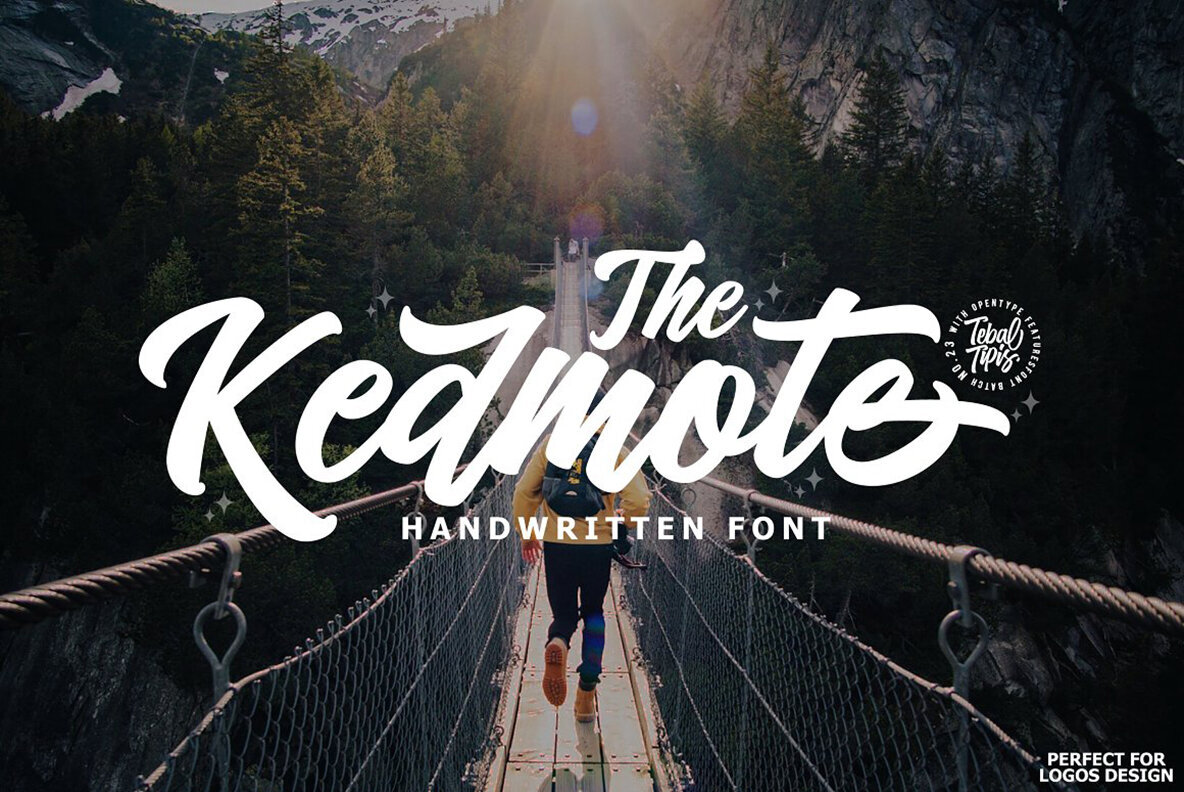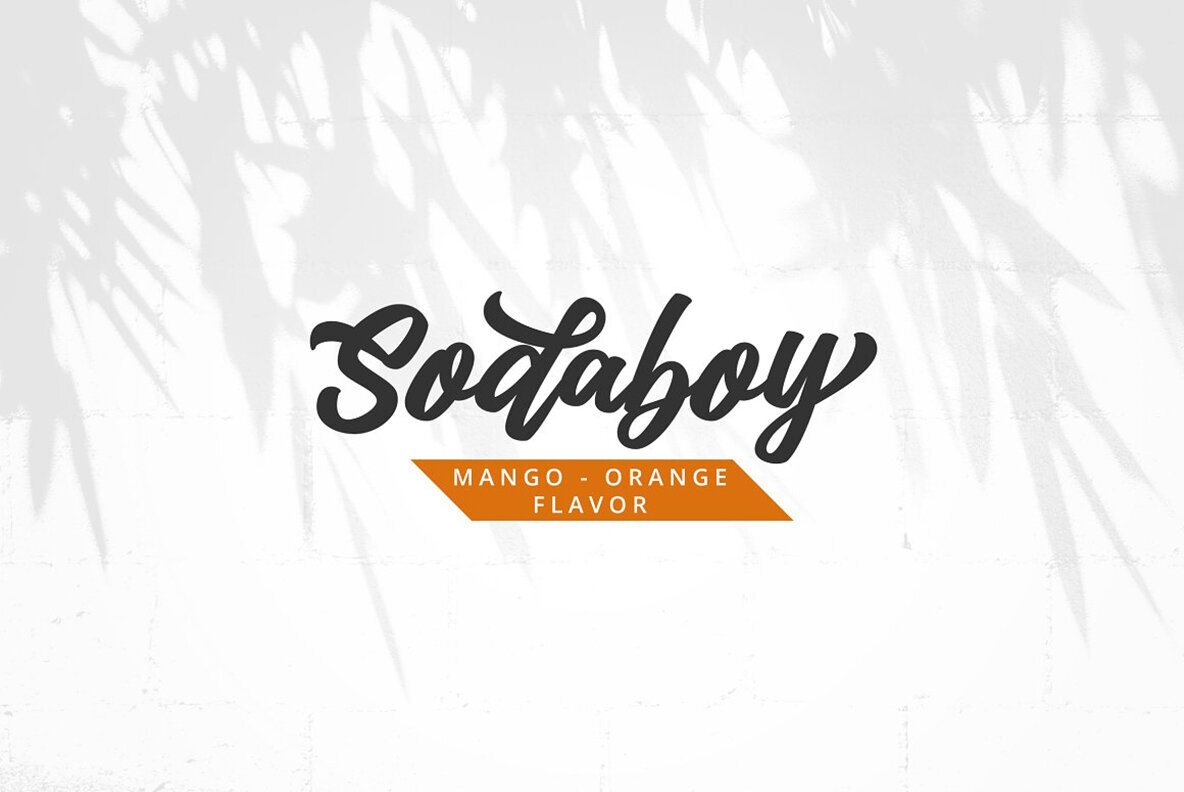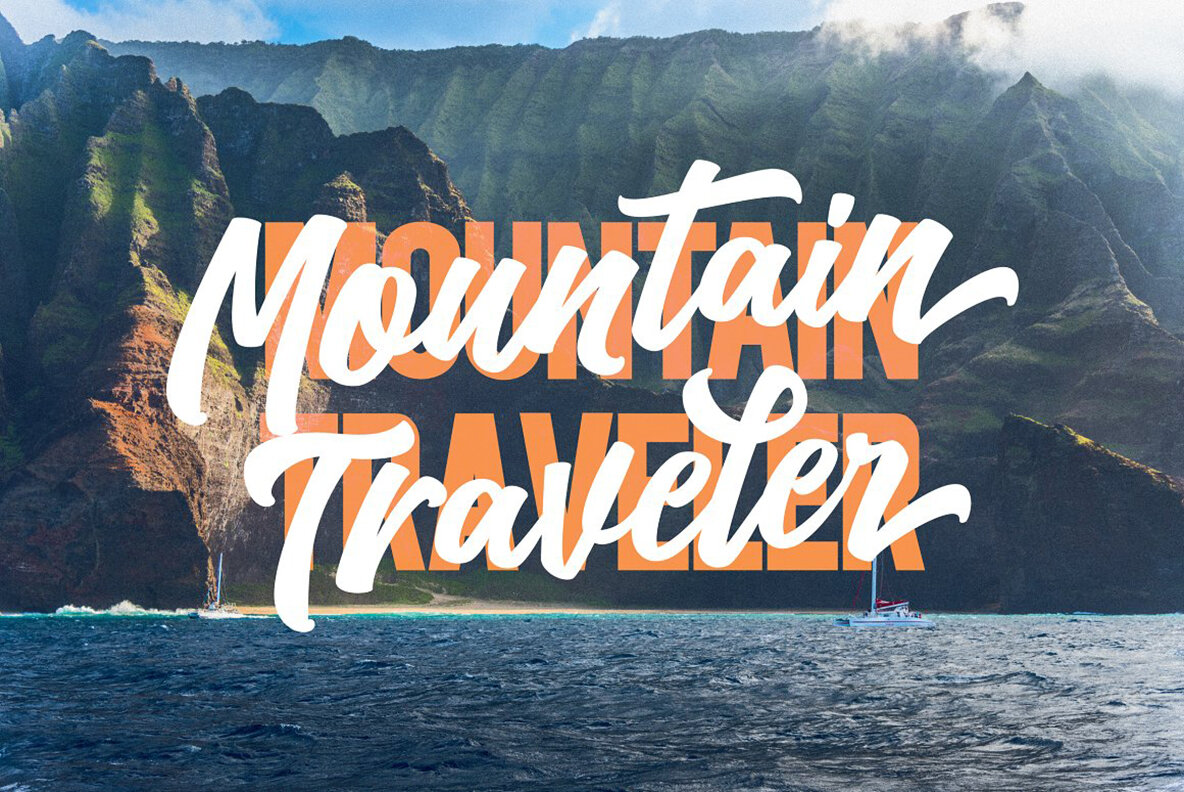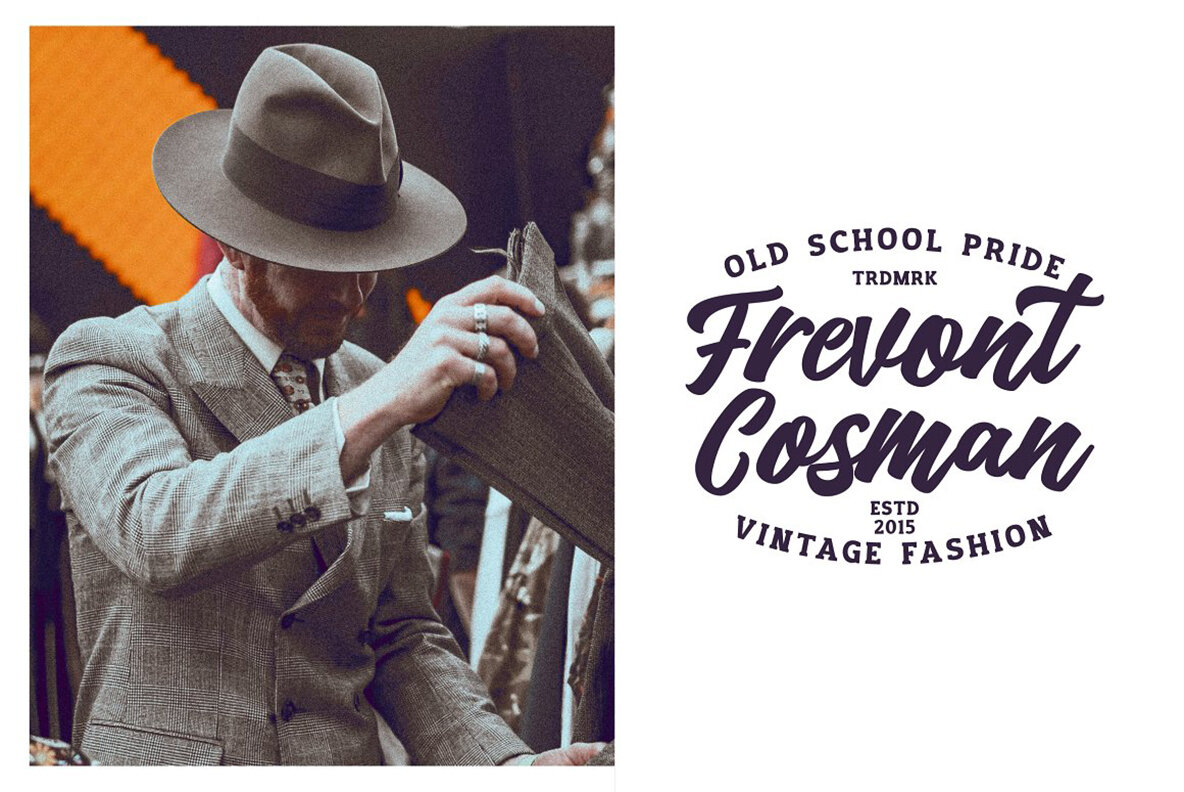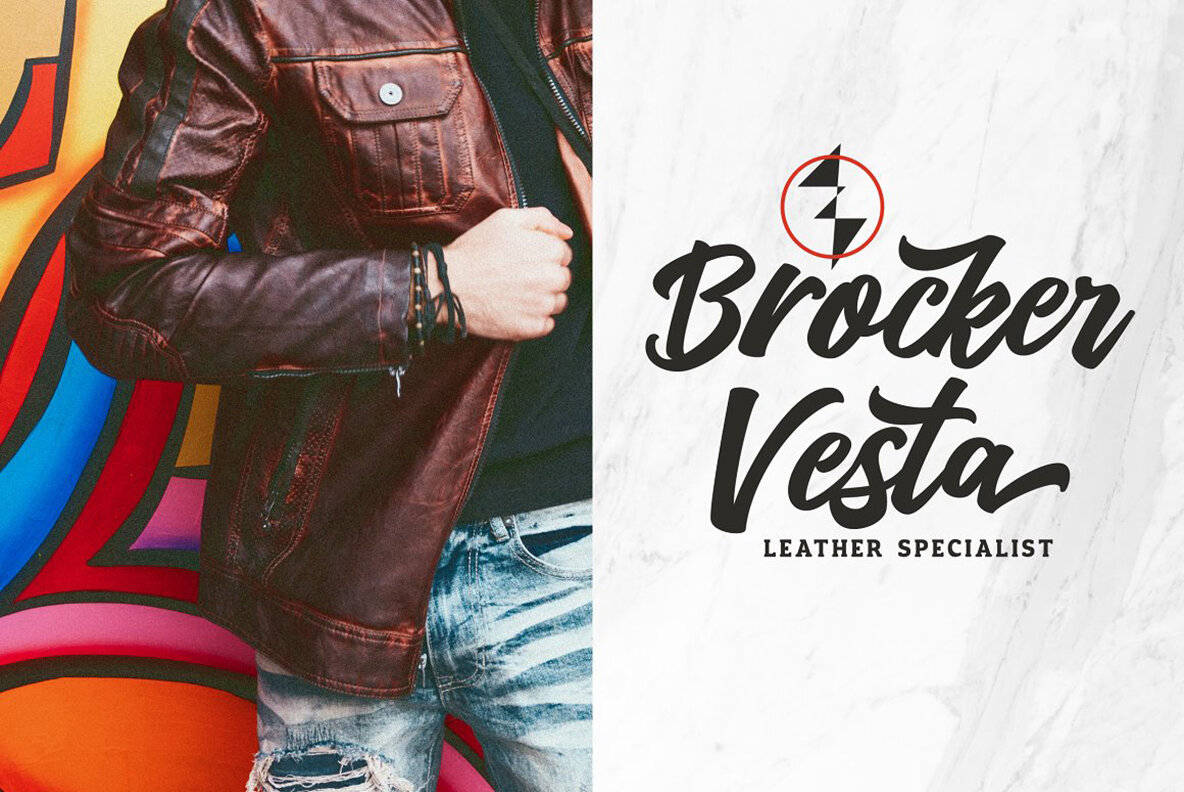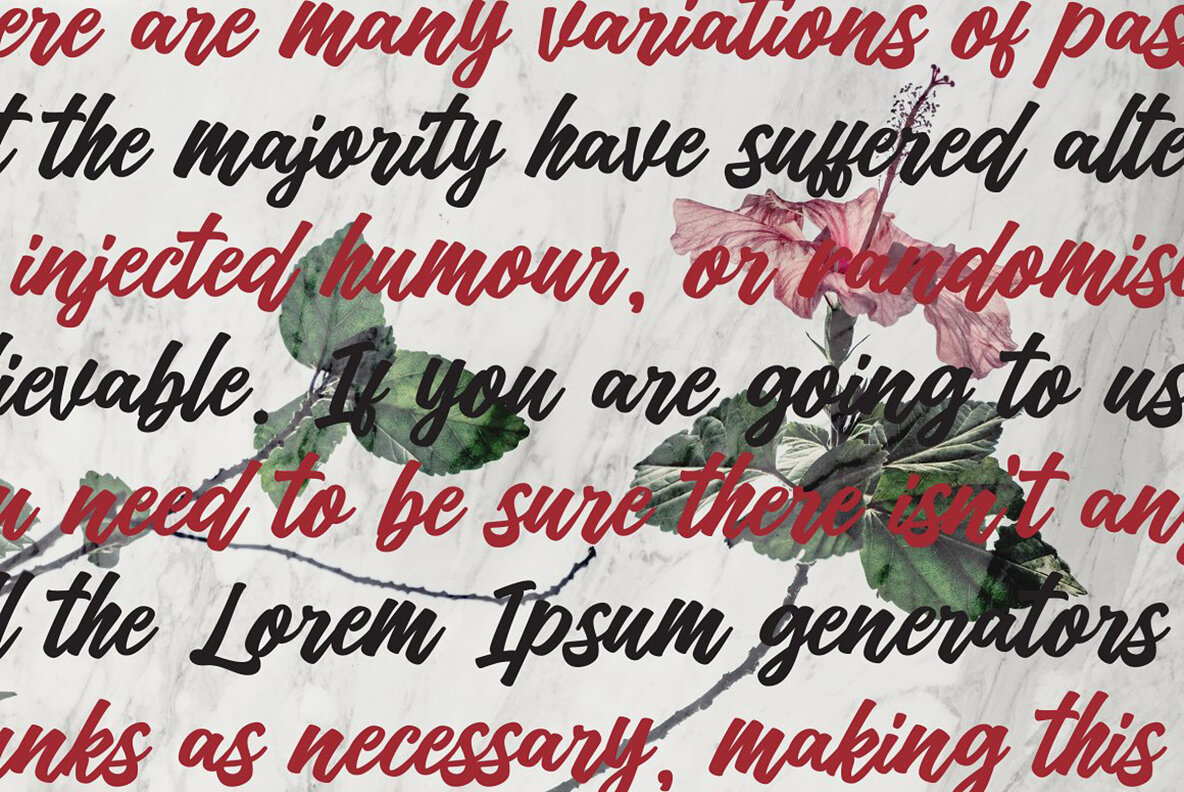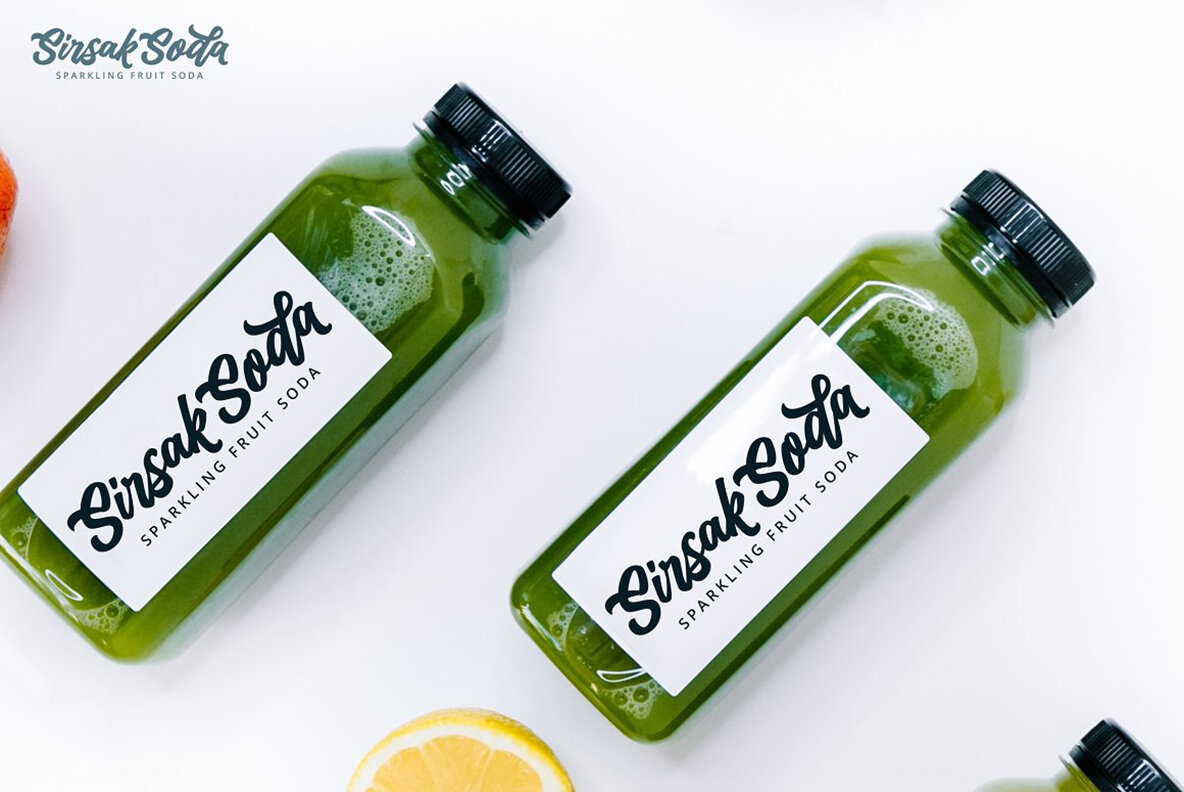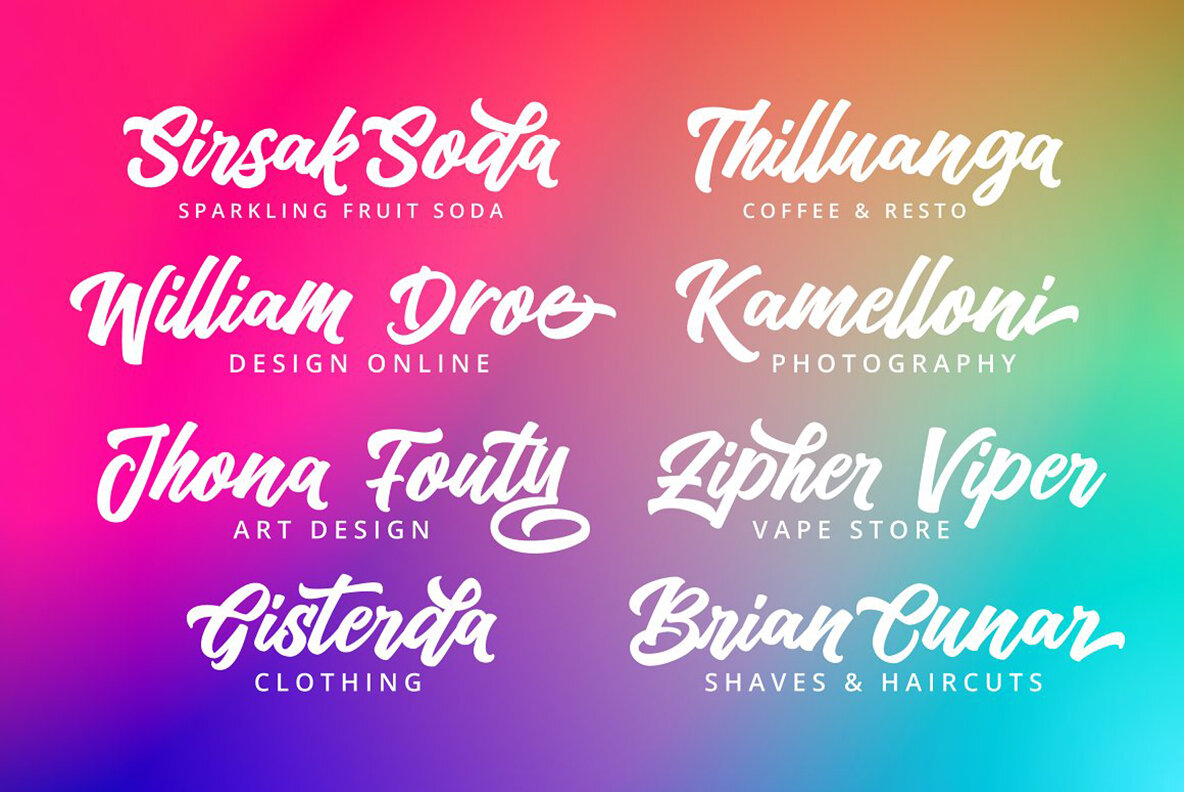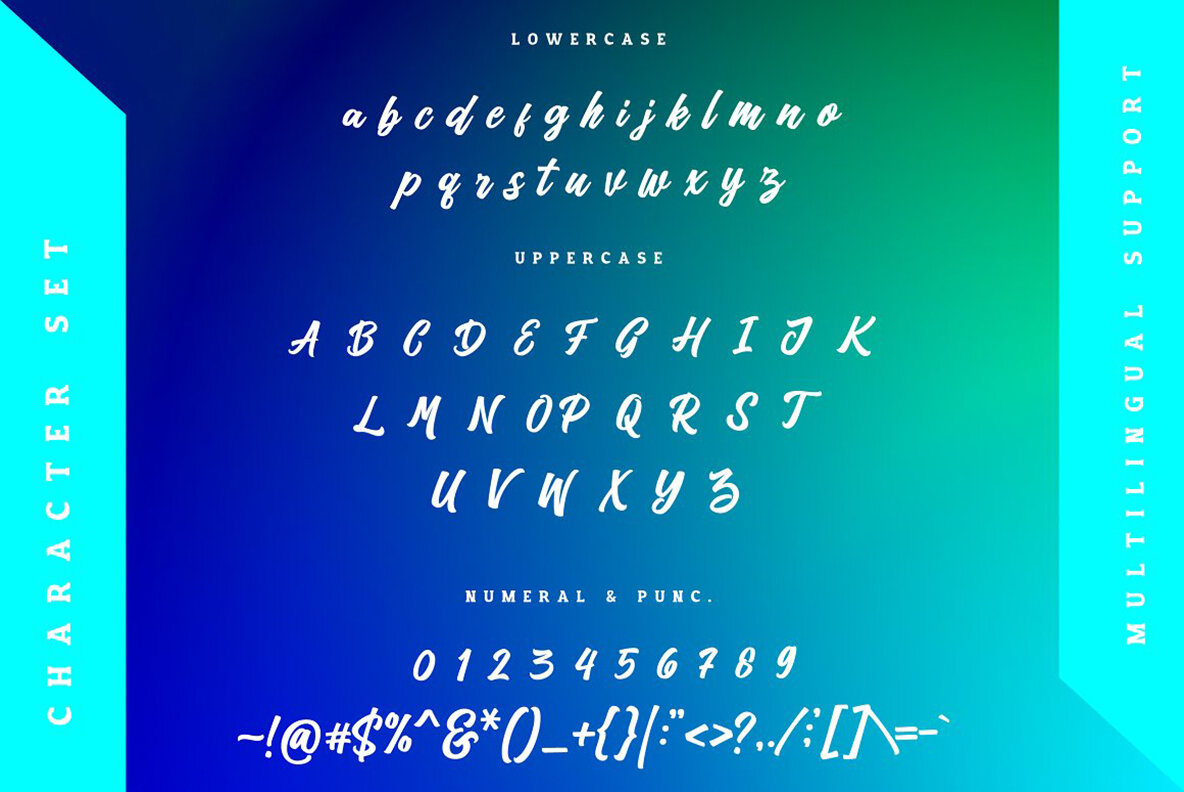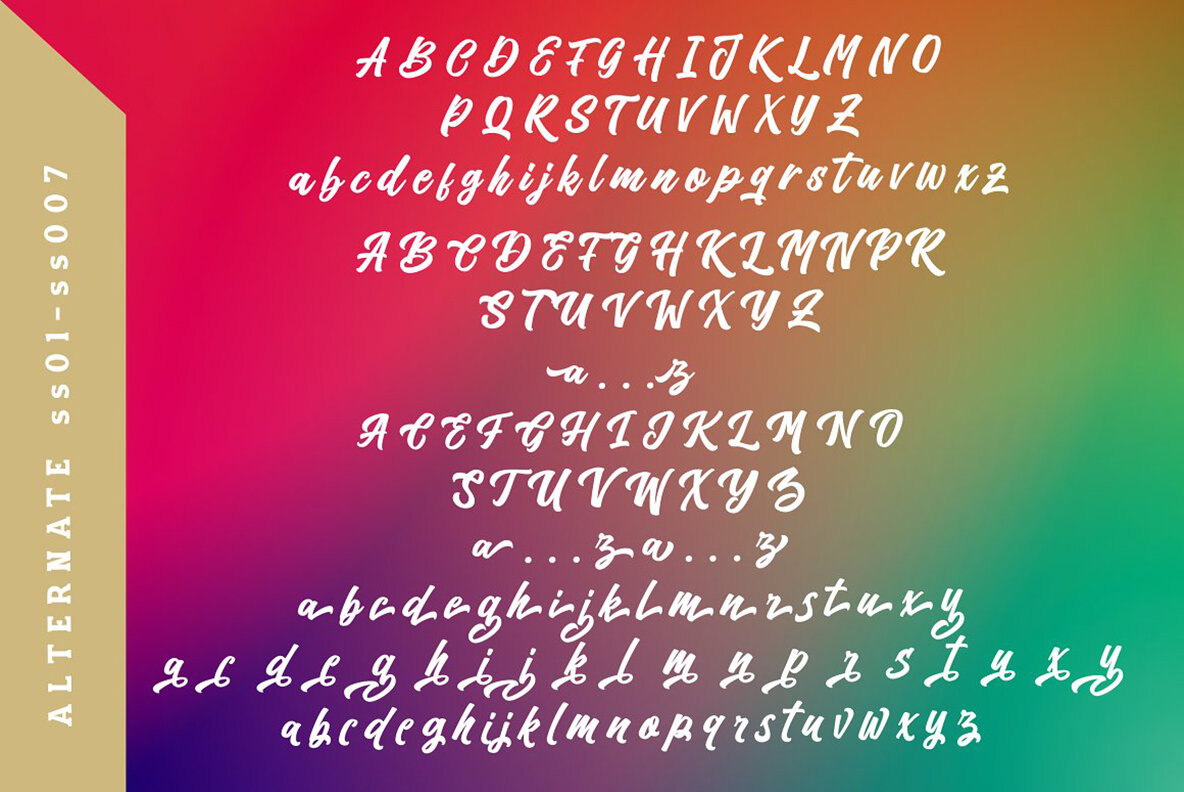
Kedmote Font
Kedmote Script
Kedmote Script is a distinct and artfully designed script typeface boasting meticulous curves, ideal for infusing personality into your creative projects. Its versatile style makes it perfect for logos, badges, packaging, headlines, posters, t-shirts, greeting cards, and wedding invitations. The elegant flow of its characters ensures your message stands out with charm and appeal.
This typeface offers numerous alternative characters, allowing you to mix and match for a tailored look that suits your design needs. Among its features are Stylistic Alternates, Stylistic Sets, and Ligatures, which enhance customization possibilities. To utilize these features, an OpenType-compatible program like Adobe Illustrator, Photoshop, or InDesign is required. Embrace the flexibility of Kedmote Script to craft compelling and personalized designs.